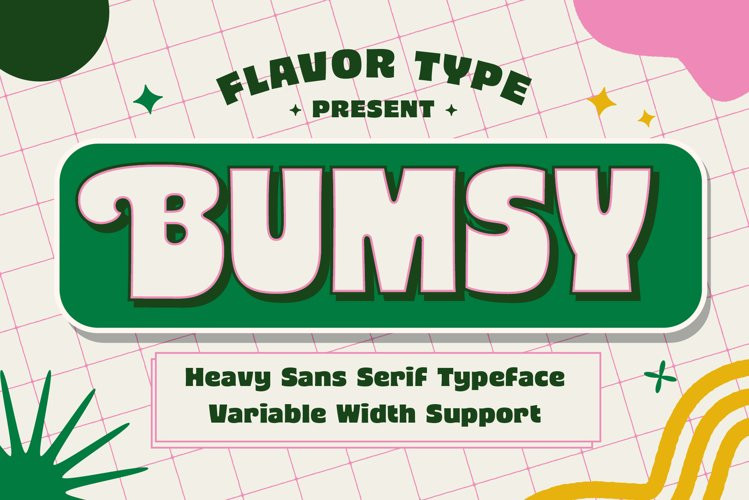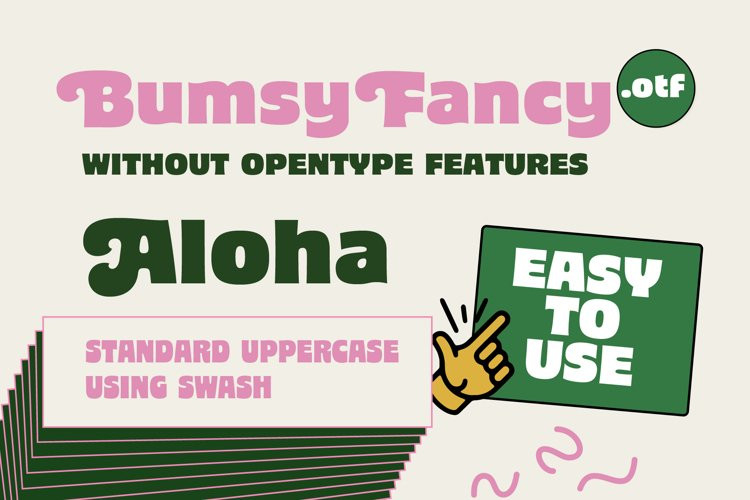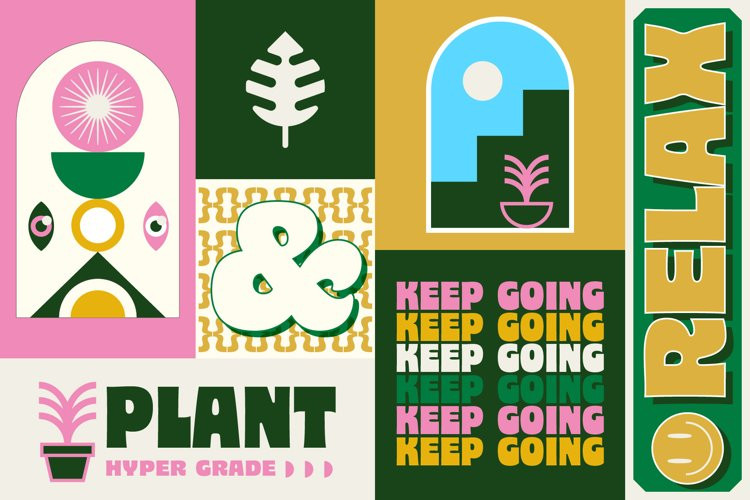
Bumsy Font
Bumsy FontBumsy, A new carefully crafted Heavy Sans Serif Typeface. It’s Versatile, Fun, Cute and Beauty feel that you get in Bumsy.
Bumsy Created with the happy and fun feeling, so the looks it represent how we feel. Bumsy comes with 3 width : Condensed, Narrow and Regular. if you want more width, you can also use the Variable Width. Bumsy also comes with beautiful swashes, Every glyphs for alternates are curated for the best and possible without eliminate characteristic of this fonts.
Our creation on the display to give you a reference what it looks like on your project. such as Branding, Header, Logotype, Poster, Magazine, Packaging, Food Menus, and etc. It shows that Bumsy clearly can accommodate various design style.